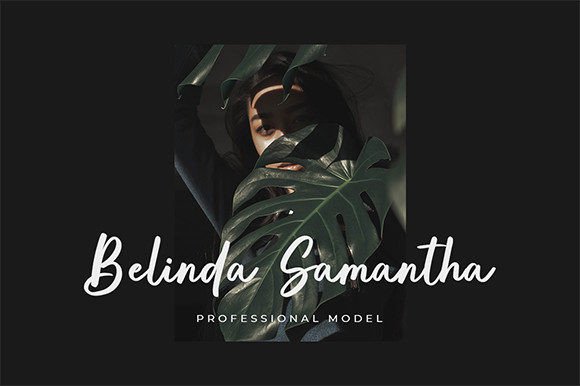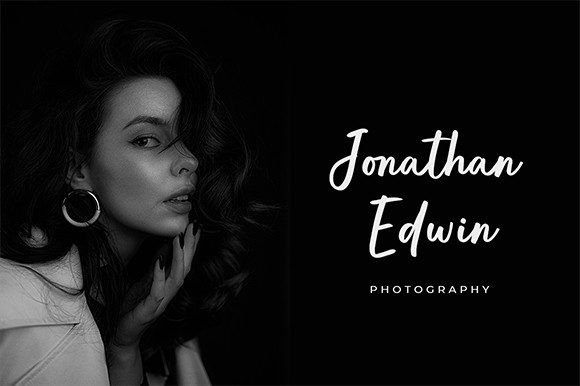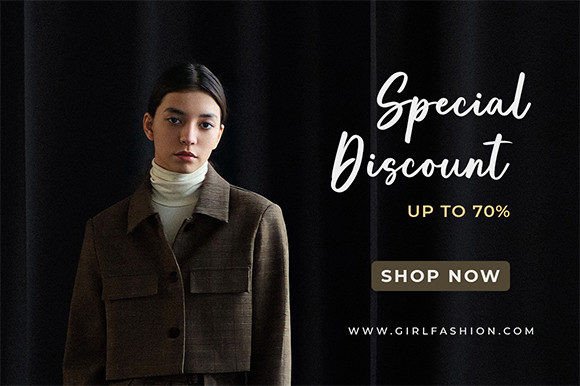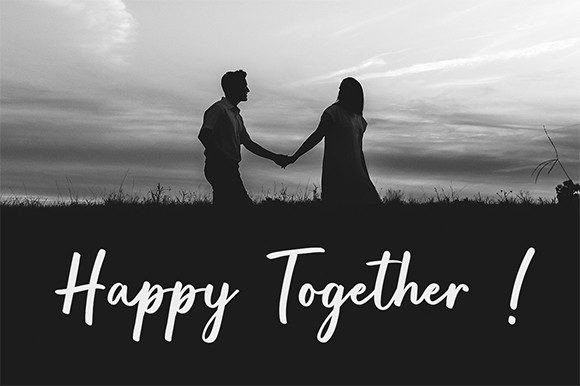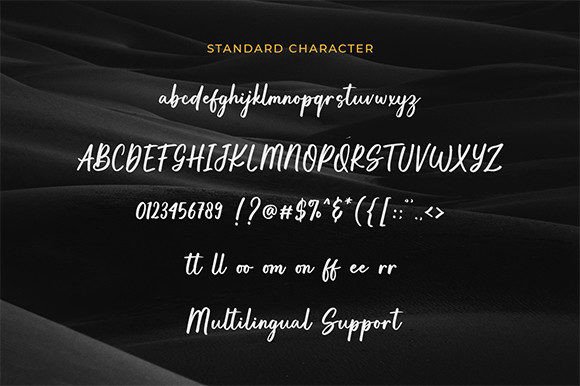
Introduction to Beautiful Harmony Font
As a designer, have you ever found yourself scrolling through a sea of generic fonts, searching for that perfect, unique touch to elevate your next creative project? I’m sure we’ve all been there. And then, it hits you – a font so beautiful, so effortless, and so captivating that it makes your design stand out from the crowd. For me, that font is the Beautiful Harmony Font. This stunning handwritten script font is the ultimate game-changer for designers looking to add a touch of elegance and sophistication to their work.
Whether you’re designing a T-shirt, a logo, or an advertisement, the Beautiful Harmony Font is the perfect choice. Its high-quality design and transparent background make it a valuable resource for any creative project. And the best part? You can download it for free, making it an accessible design resource for designers of all levels.
Key Features of Beautiful Harmony Font
- High-quality design resource ideal for creative projects, including logos, branding, and typography.
- Transparent background option allows for seamless integration with various design elements and backgrounds.
- Includes a wide range of characters, including uppercase and lowercase letters, numbers, and special characters, making it suitable for various creative projects.
- Resolution-independent, allowing for use at any size without compromising quality.
- Perfect for designers seeking a unique, high-quality font to elevate their creative projects and stand out from the crowd.
Honest Review: Beautiful Harmony Font
I recently came across the Beautiful Harmony Font and was eager to dive in and see what it had to offer. As a designer, I’m always on the lookout for high-quality design resources to elevate my creative projects. The Beautiful Harmony Font definitely caught my eye with its unique and elegant style.
One of the standout features of this font is its versatility. It’s perfect for a wide range of creative projects, from wedding invitations to branding materials. The font’s high quality is evident in its smooth lines and subtle curves, making it a great addition to any design.
- ✨ High-quality design with smooth lines and subtle curves
- ✨ Versatile and suitable for a wide range of creative projects
- ⚠️ Limited character set, may not be suitable for projects that require extensive text
- ⚠️ Not ideal for projects that require a transparent background, as the font may not display well
Overall, I was impressed with the Beautiful Harmony Font and would definitely consider using it for future projects. However, it’s essential to keep in mind its limitations and ensure it meets the specific needs of your design.
Beautiful Harmony Font
The Beautiful Harmony Font is ideal for creative projects that require a touch of elegance and sophistication. Some common use cases include:
- Artistic prints and posters